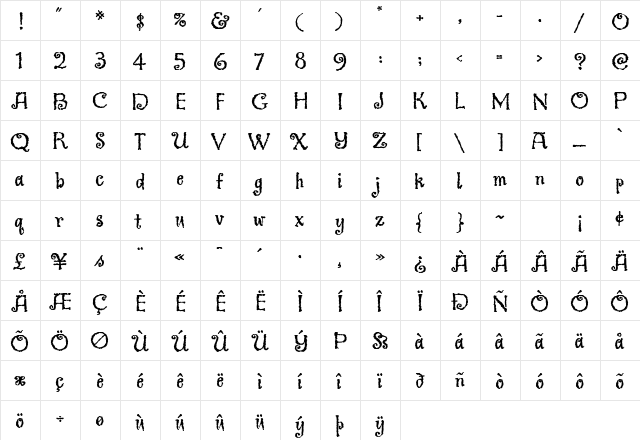
Greymantle Regular
Design Context for Greymantle Typeface
Greymantle is a composed and adaptable typeface that performs quietly and consistently across a wide range of design contexts.